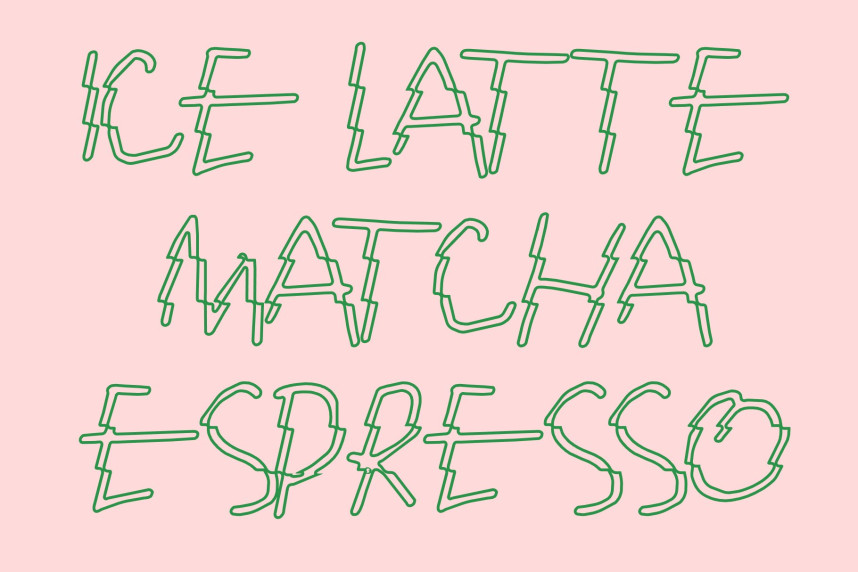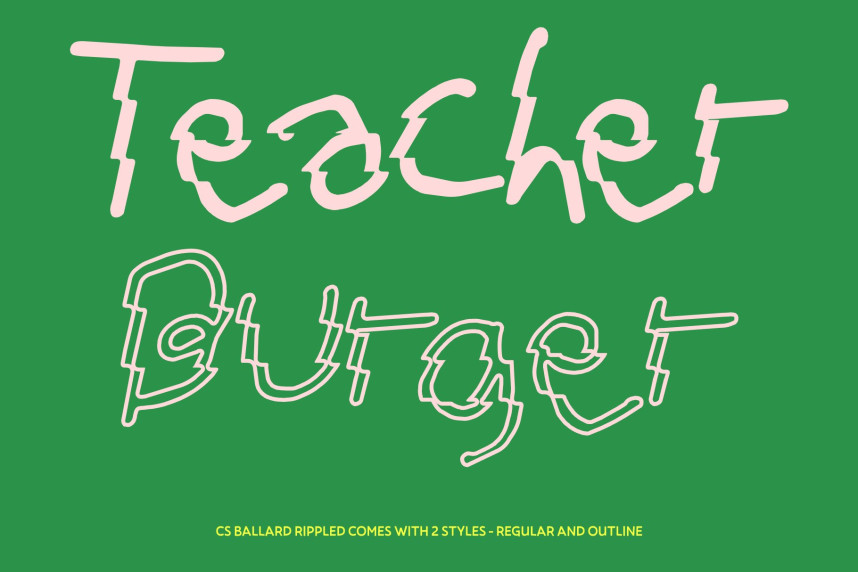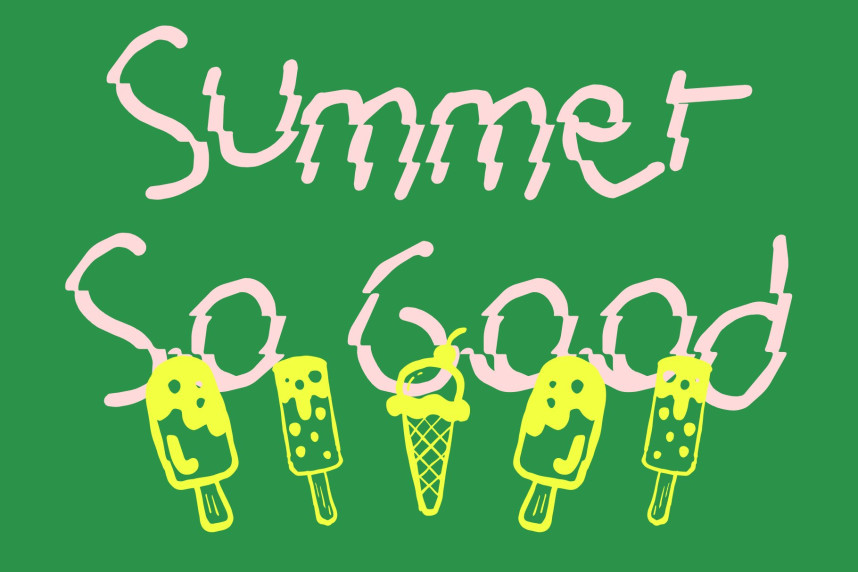
CS Ballard Rippled Font
CS Ballard Rippled Font – The Beauty of Chaos in Fluid Handwritten Form
Messy Handwritten Style with Playful Personality
This is a gritty yet charming handwritten font that celebrates imperfection, spontaneity, and creative freedom. Designed with irregular strokes and a freely scribbled appearance, it captures the raw energy of natural handwriting in its most expressive form. Every letter feels alive with movement, creating a lively and engaging visual rhythm that instantly adds personality to any composition.